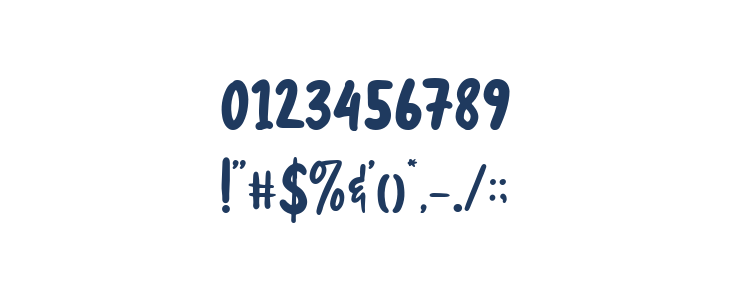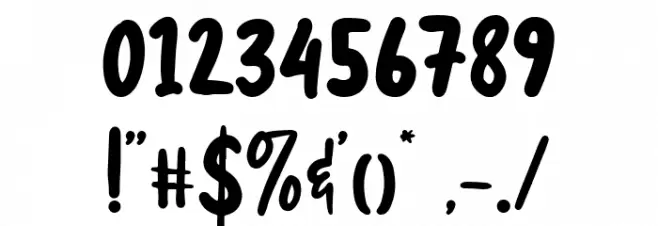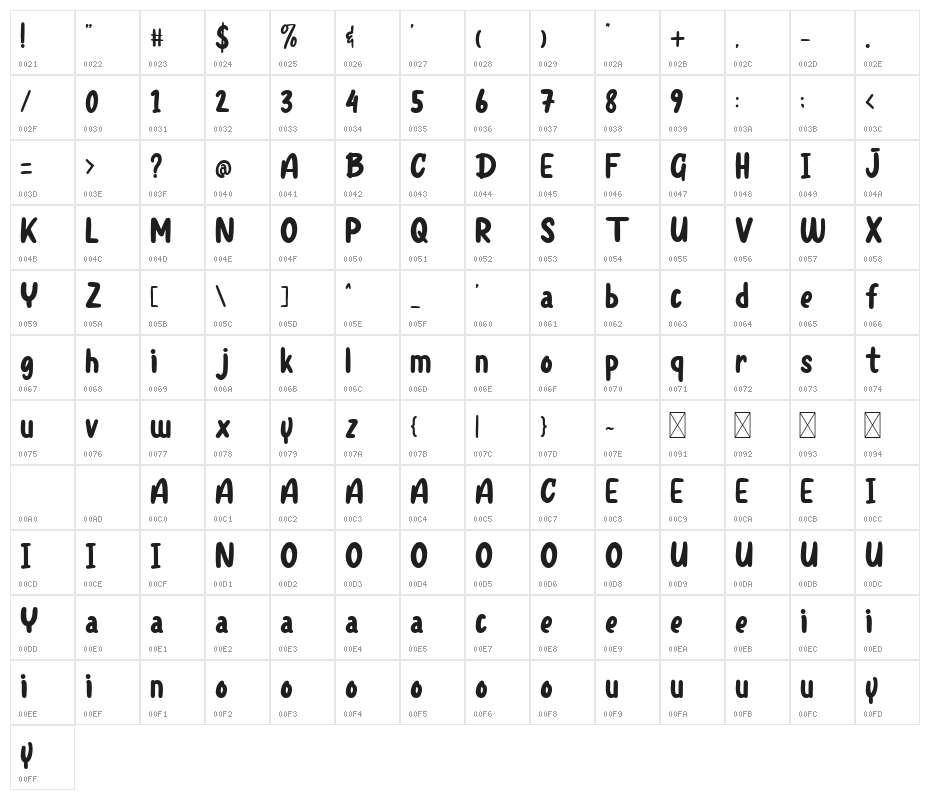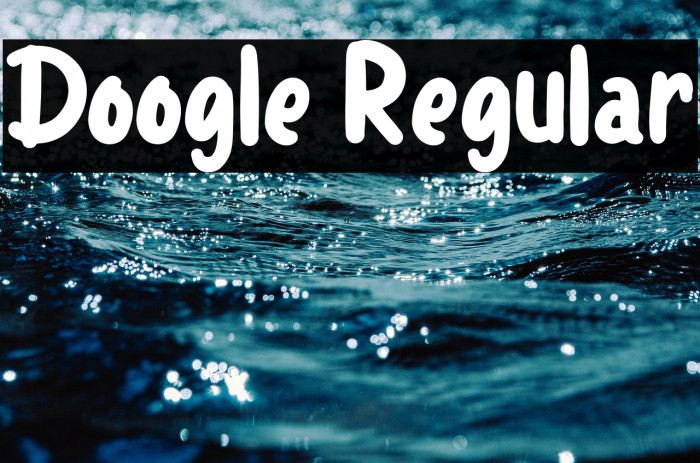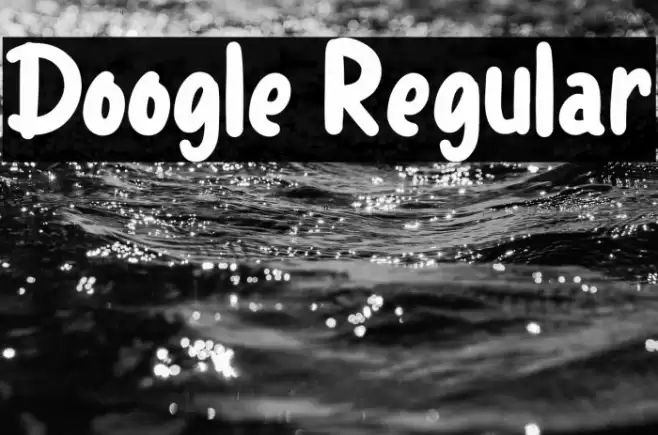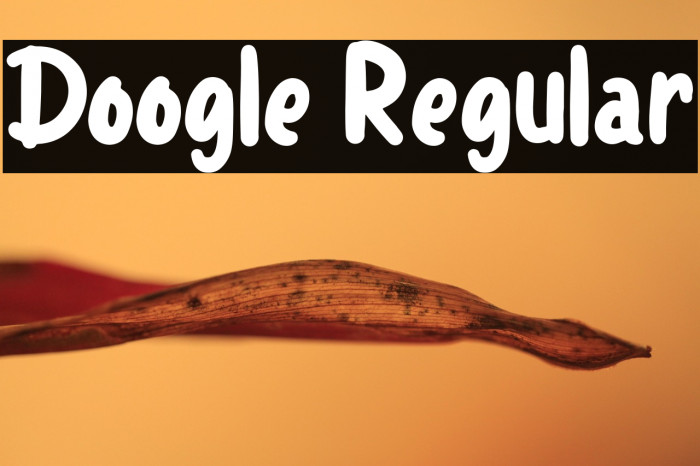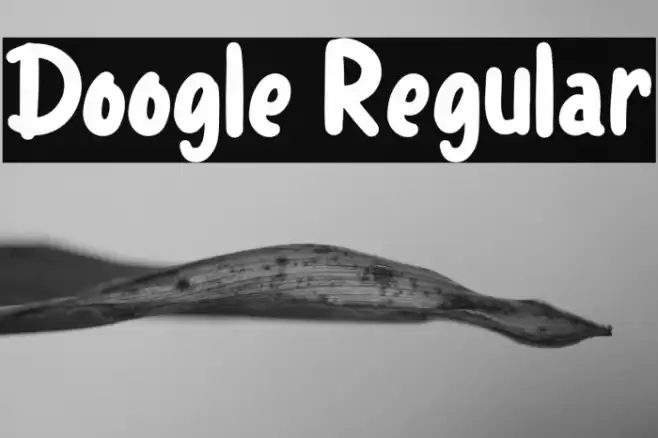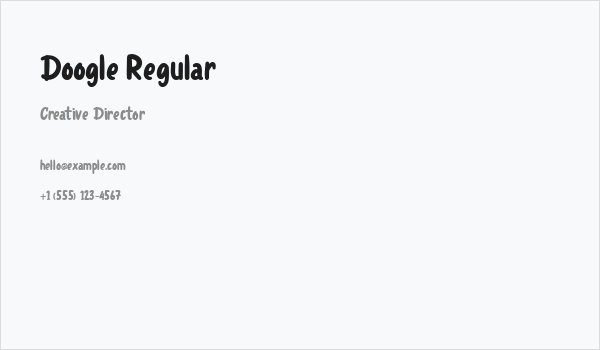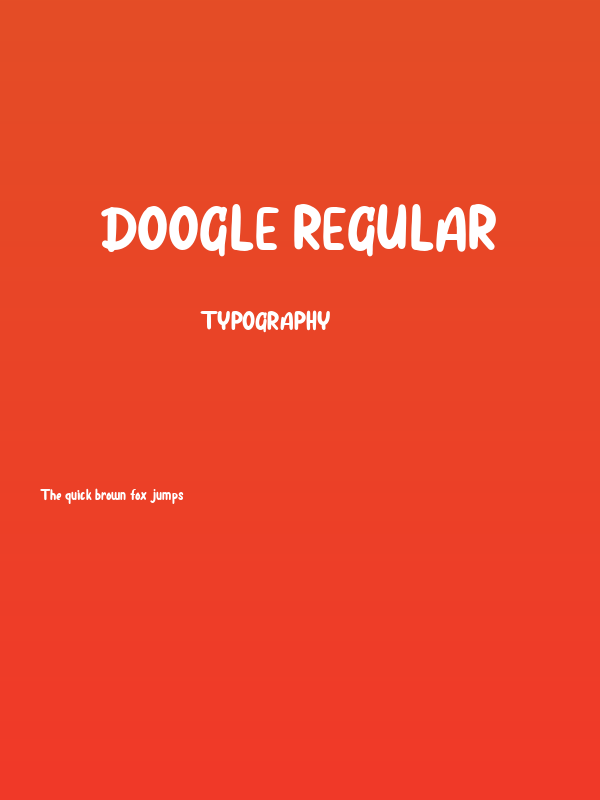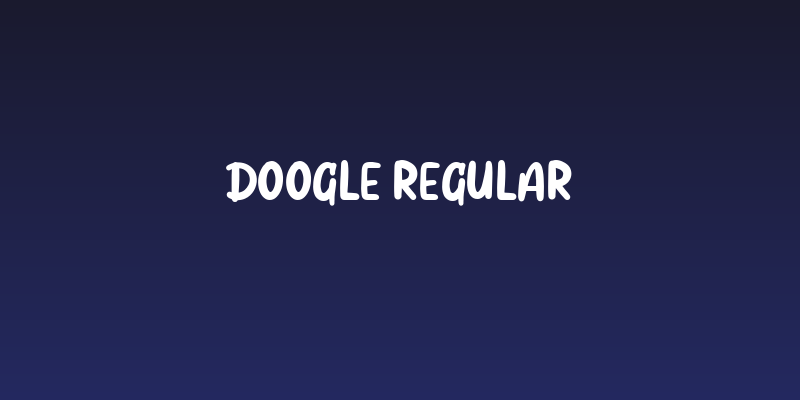
Doogle Regular Font
Doogle Regular Description
This font features a playful and bold style with rounded edges and a handwritten feel. The letters are thick and slightly irregular, giving it a casual and friendly appearance. The uppercase and lowercase characters maintain a consistent style, with a slight slant that adds to its informal charm. Numbers and special characters are designed to match the overall aesthetic, making it versatile for various uses. The font's boldness ensures high readability, while its unique style makes it stand out in any design.
| Proposed Projects | Ideal for children's books, playful branding, casual invitations, and social media graphics. |